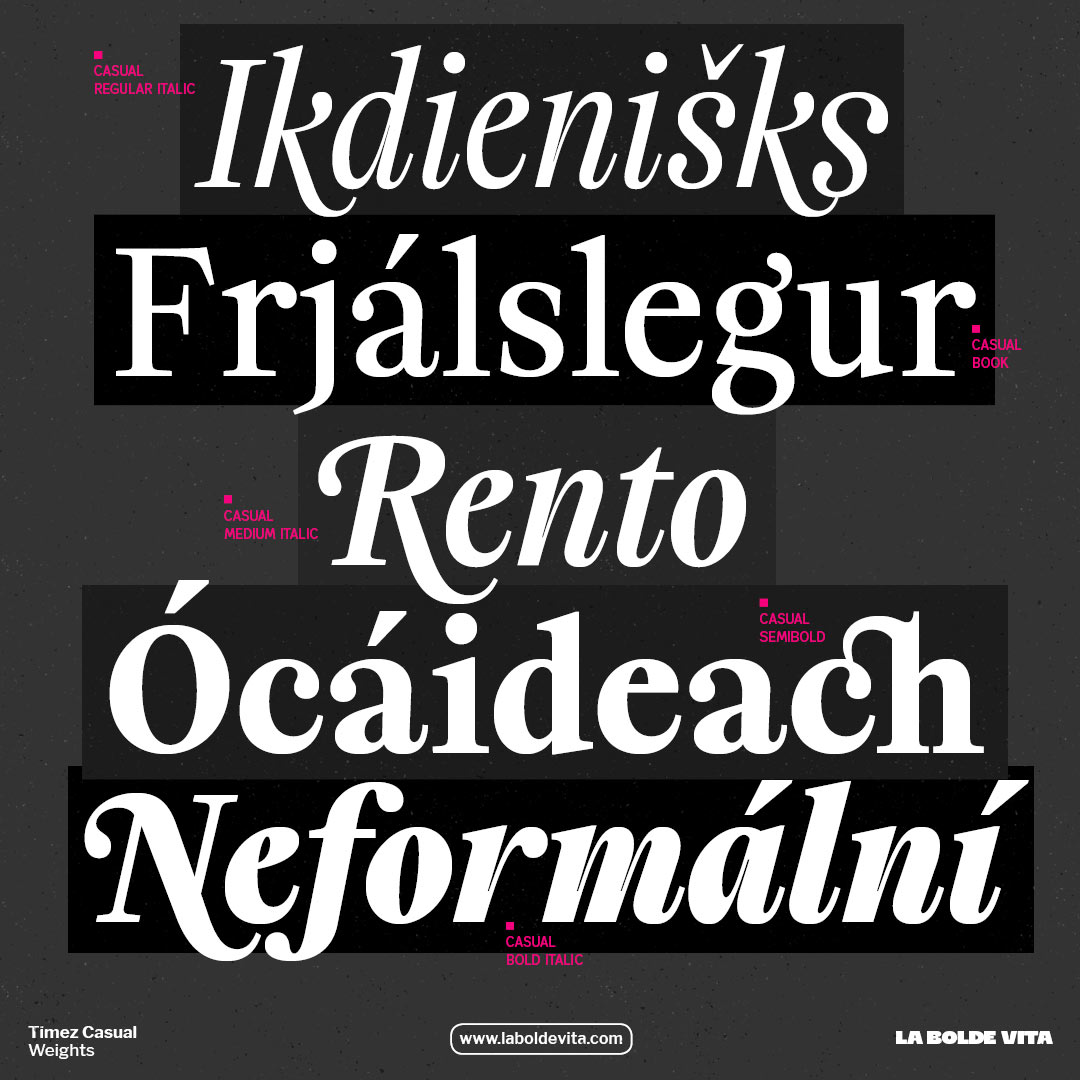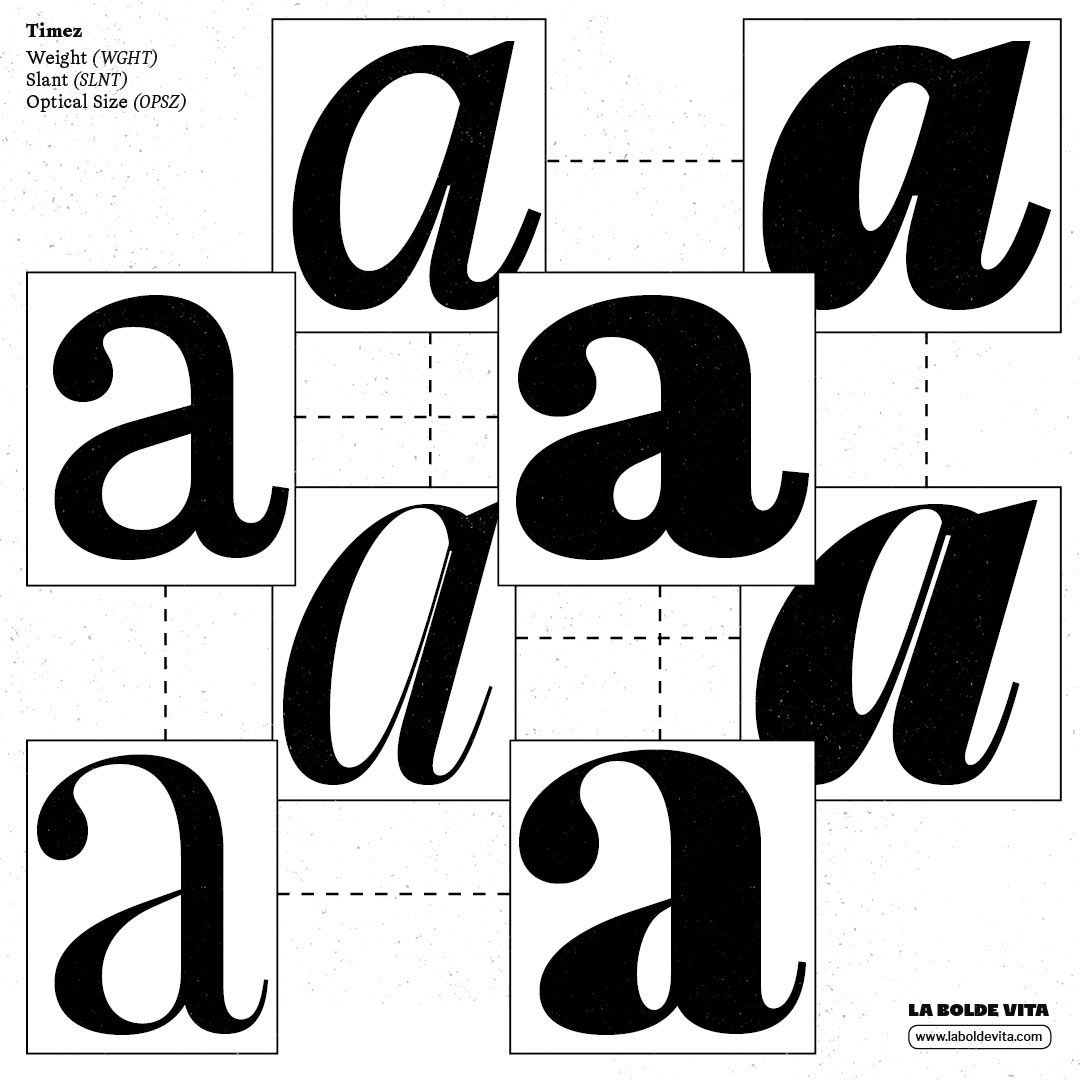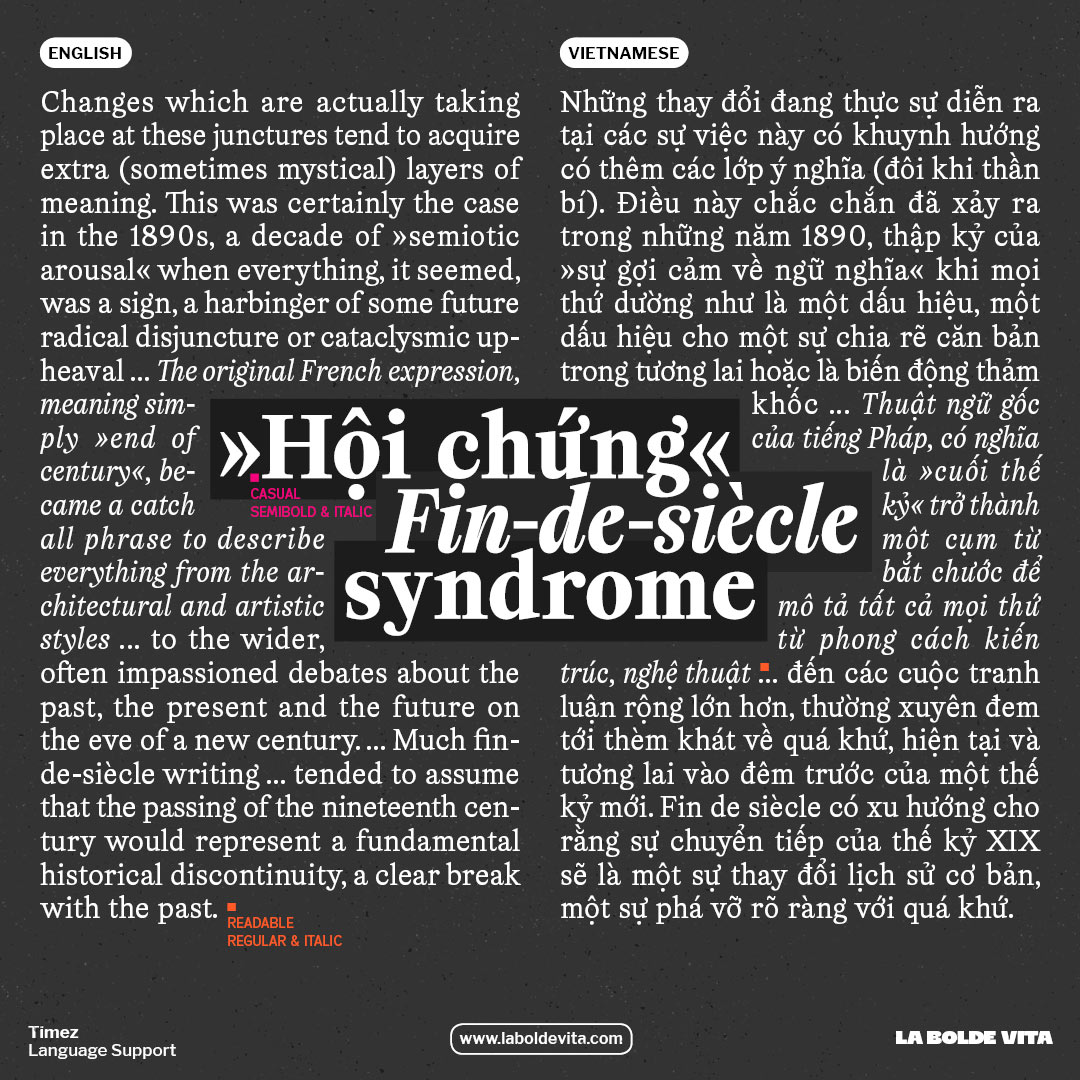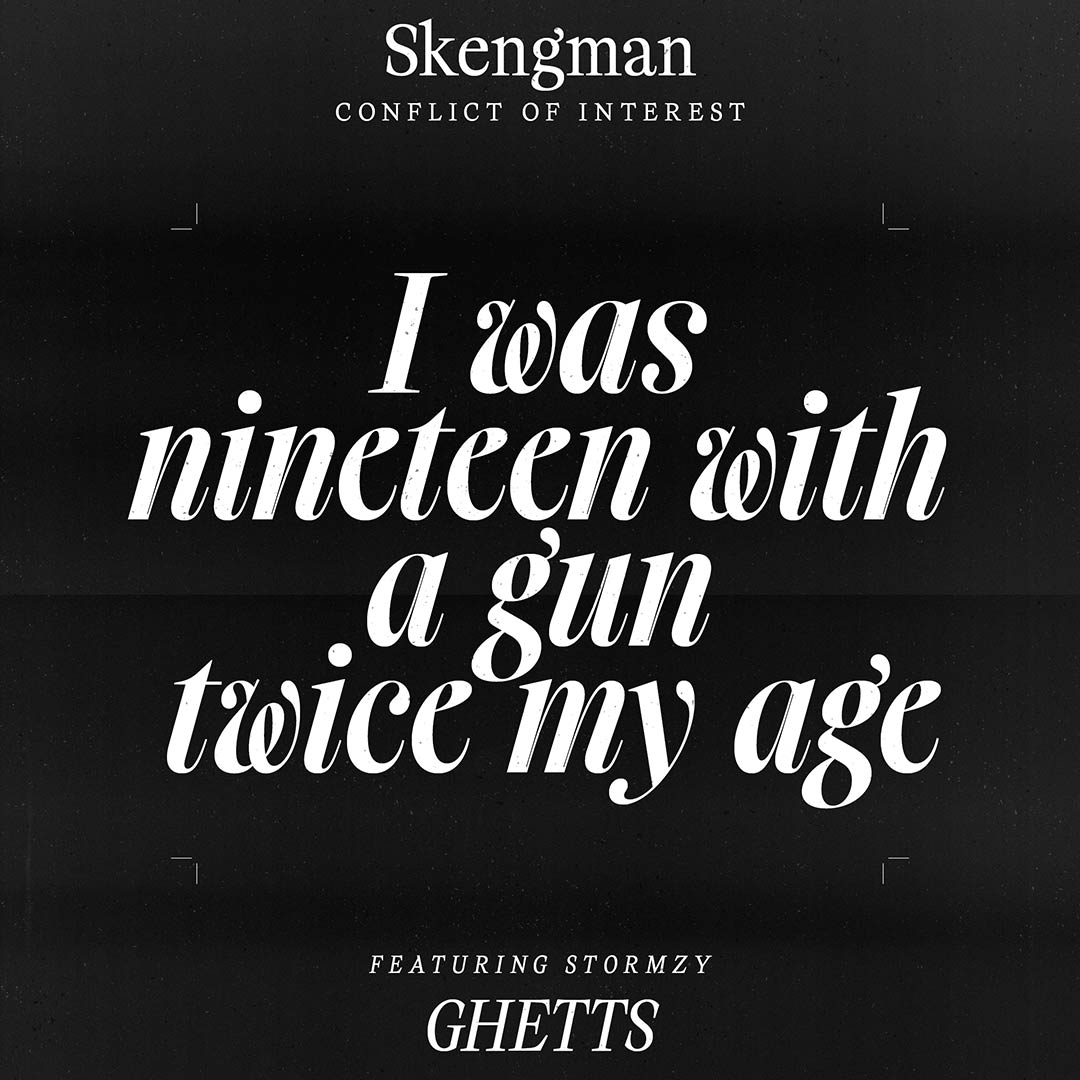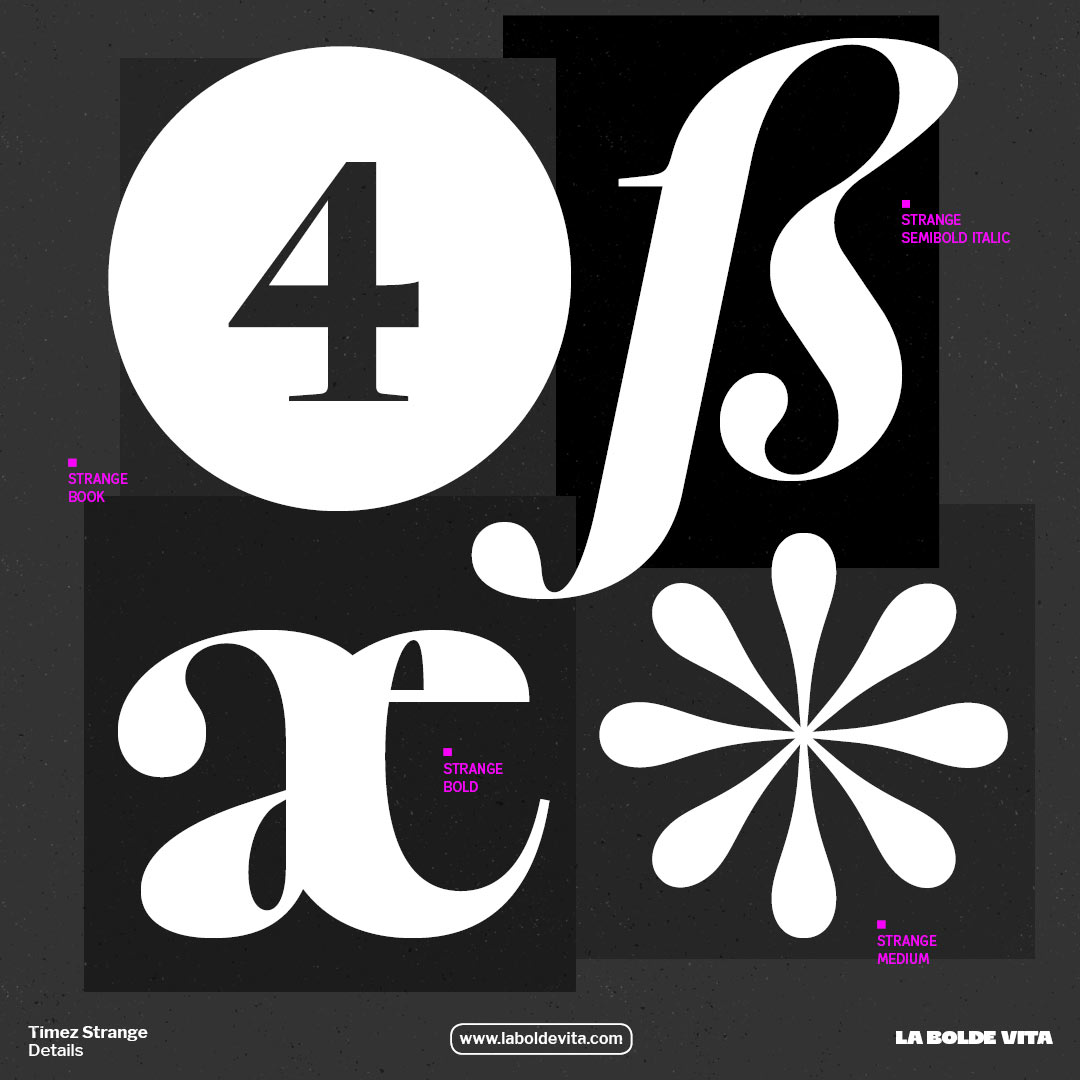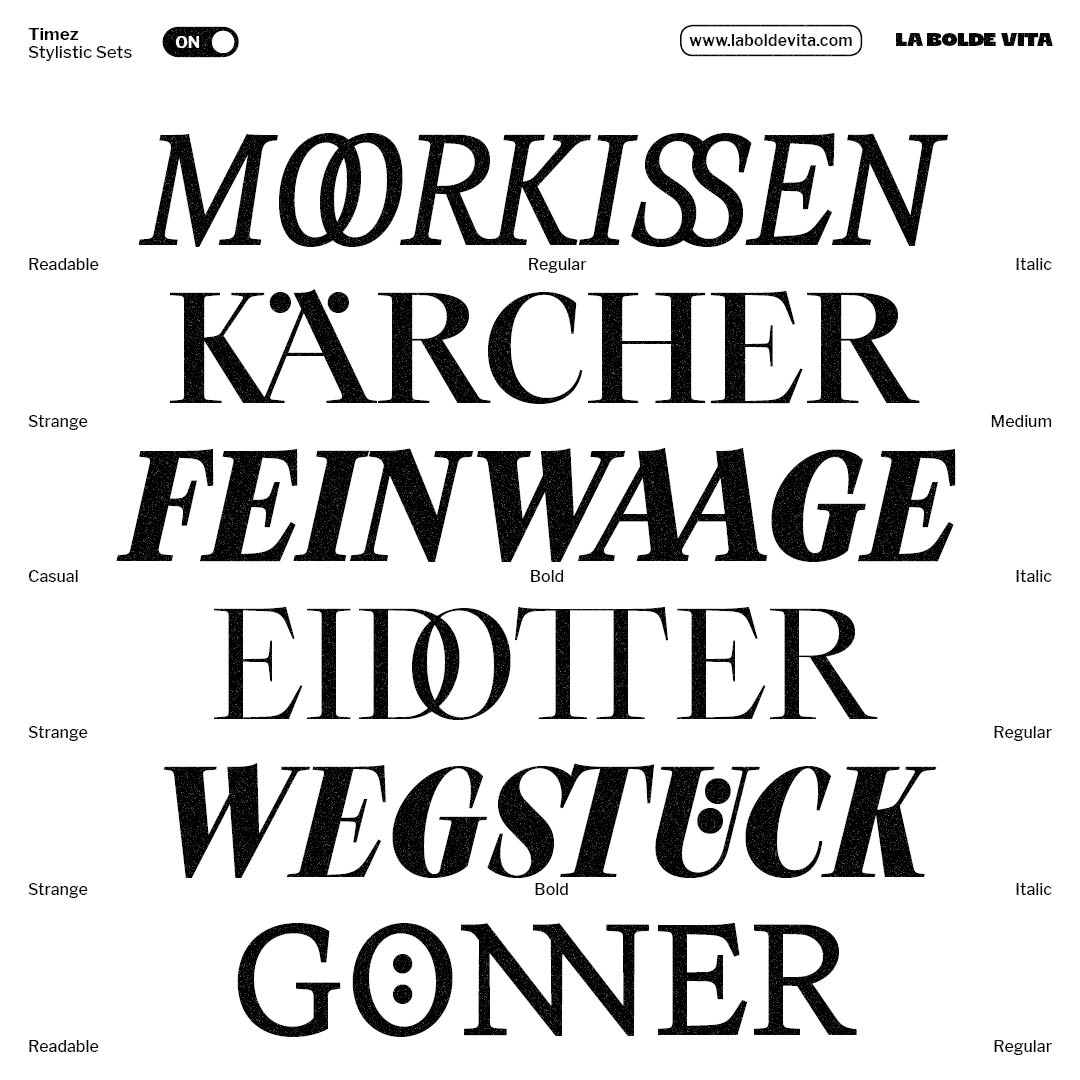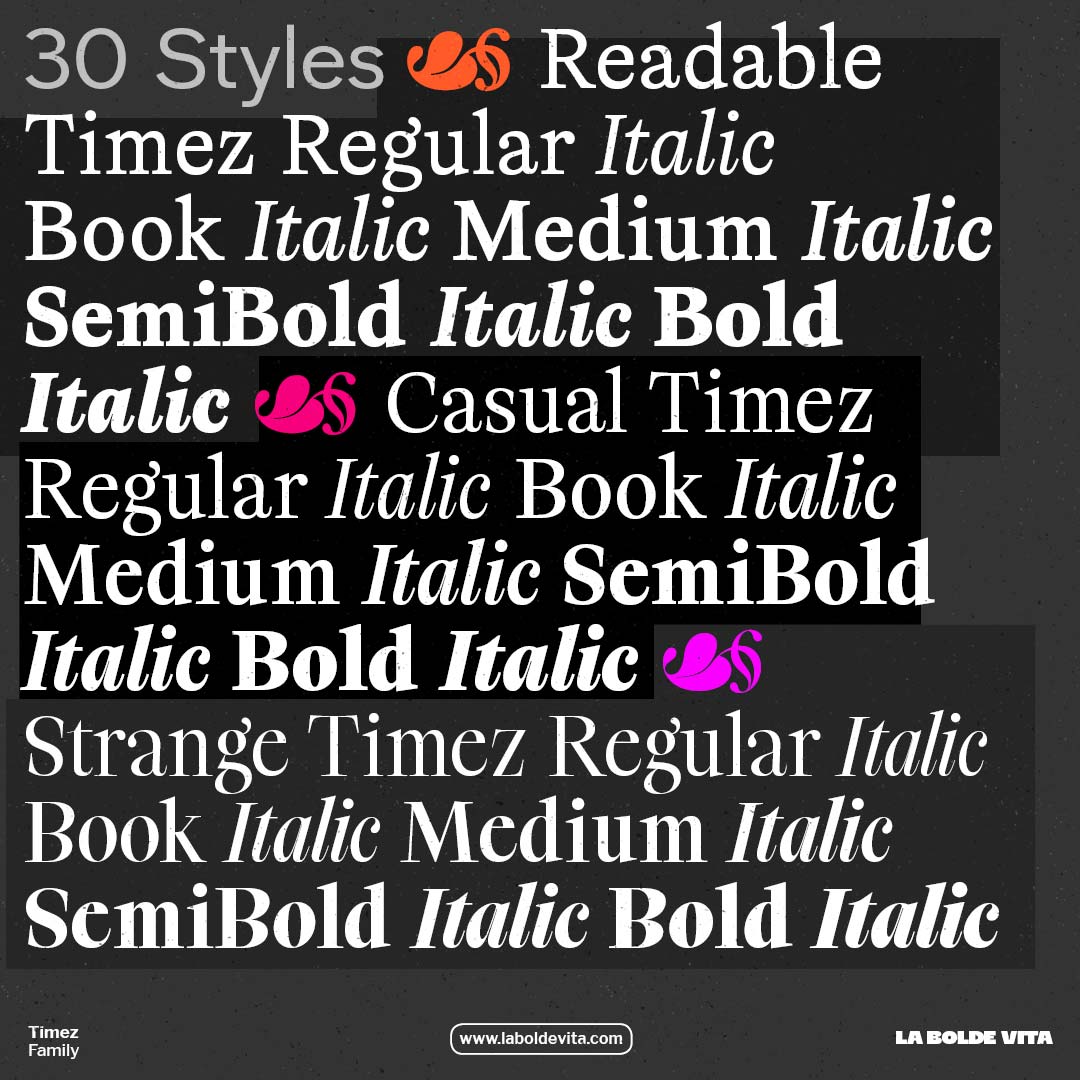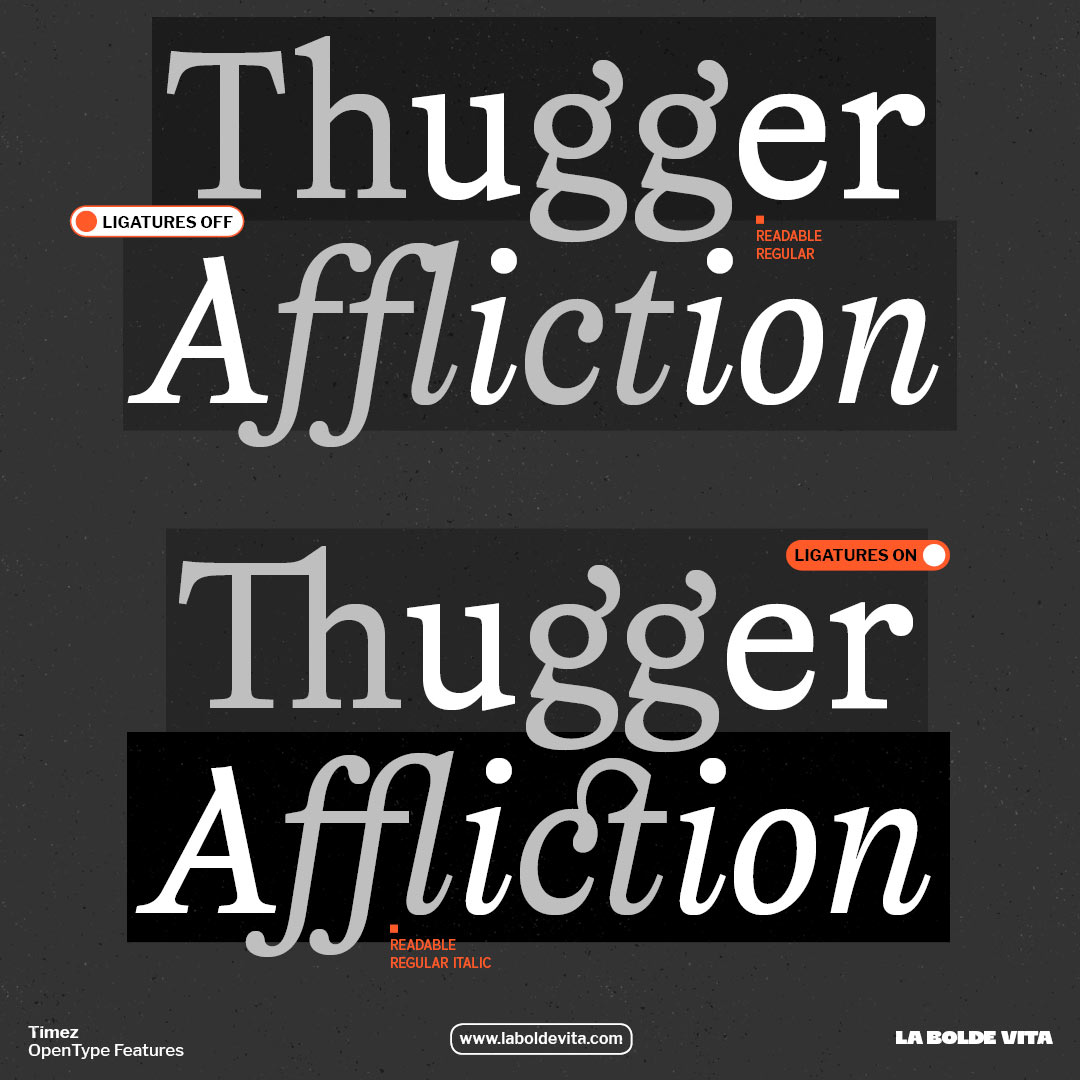
What makes a typeface easy to read? Which features classify it for display purposes? The Timez family seeks to provide answers to such questions by building a concrete system that spans both extremes.
Divided into three sub-families – Readable, Casual and Strange – diverse purposes for modern graphic design are covered. Based on the same skeleton and technical parameters, almost everything develops: spacing, contrast, proportions, curve tension, italic angles, you name it. When needed, Timez can evolve from a handy text type to an exciting tool for display applications.
As if that wasn't enough, the family comes with a generous selection of features, both for text and display purposes. That said, you'll find just as many ligatures that support good rhythm as there are decorative and fancy ones. Italic swashes, options for tighter capital spacing, various symbols and figure styles, variable fonts as well as a broad Latin language support are just the icing on the typographic cake.
Serif from Text to Display
Released in 2022
30 styles
Extensive Features
911 (Italic) Glyphs
Latin AF
Readable Timez
Casual Timez
Strange Timez
All styles of the Timez family come with handy and decorative features — ligatures, swashes, case-sensitive forms and more.
Oldstyle numerals
Case sensitive forms
Circled numbers
Timez comes with 816 glyphs for the upright and 985 glyphs for italic styles – covering the Latin AF (including Latin Extended-A Unicode Range), swashed alternates, ligatures, various figure styles and a set of arrows.
Thanks to the coverage of the Latin-Extended-A Unicode range, the Timez family supports almost all modern Latin languages. Actually, completing our own Latin AF Characterset containing some additional accented glyphs, you can set text in 302 languages, including Vietnamese. If you still think your language isn’t supported, you can look up the full list below or in the specimen.